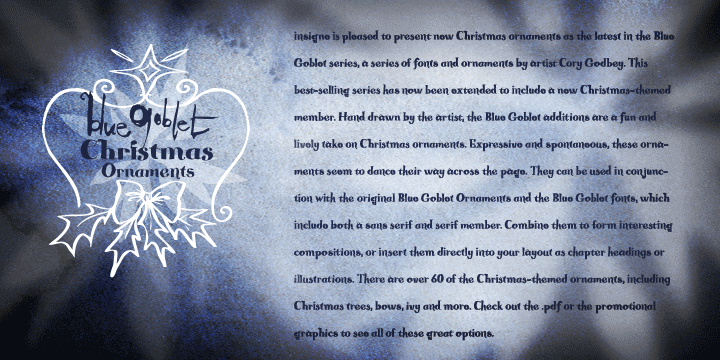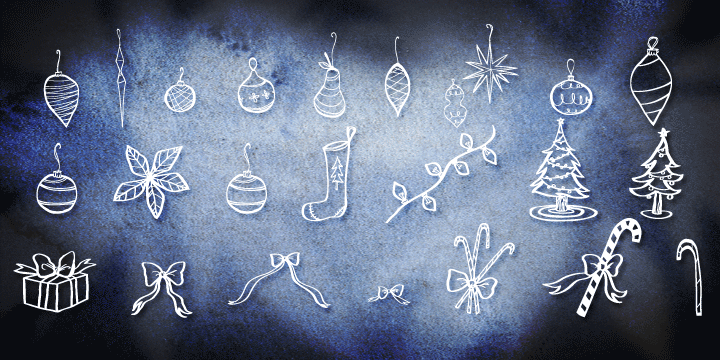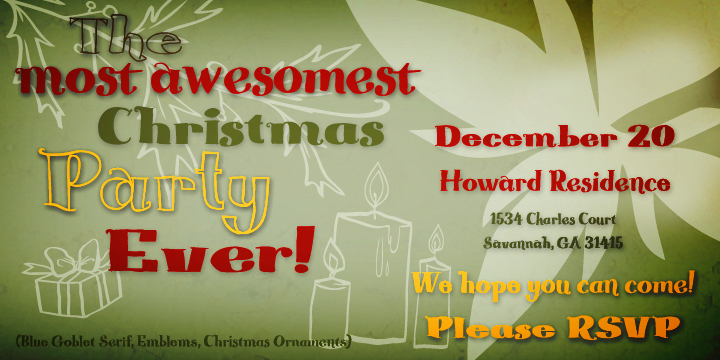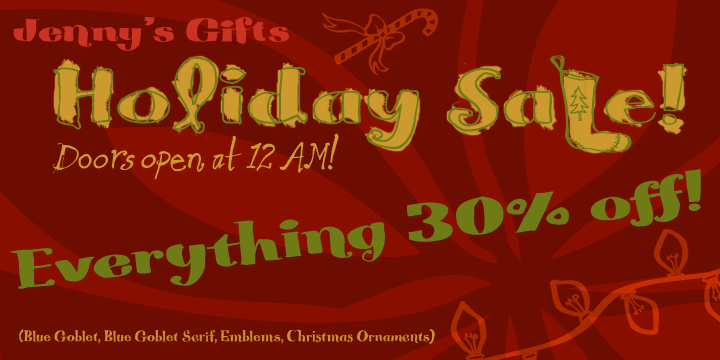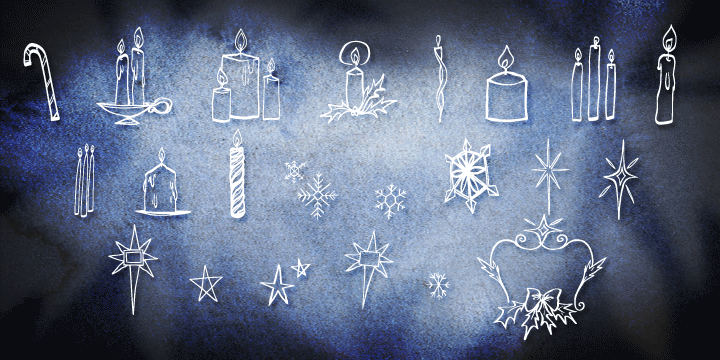
Blue Goblet Christmas Orns is a dingbat font published by Insigne Design.
insigne™ is pleased to present new Christmas ornaments as the latest in the Blue Goblet series—a series of fonts and ornaments by artist Cory Godbey. This best-selling series has now been extended to include a new Christmas-themed member.